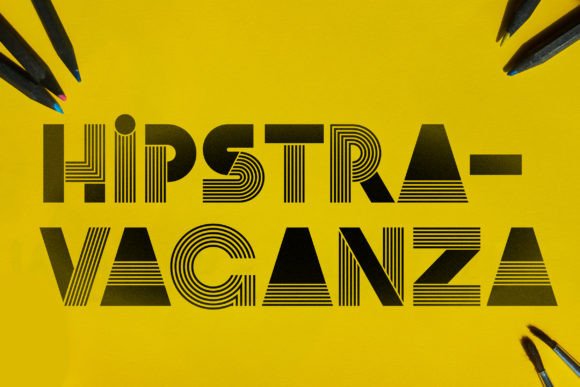
Introducing the Hipstravaganza Font, a Journey into the Realm of Dazzling Typography.
A dazzling display of vintage charm is here—the Hipstravaganza Font. Embark on a typographical voyage where bold, retro style takes center stage, and dynamic designs come to life. This decorative font is a master of capturing attention, leaving an unforgettable impact on your visual creations.
Experience the Burst of Unique Characters:
Unleash the potential of distinctive letterforms that blend blocks and parallel lines in an electrifying fusion. The uppercase and lowercase sets offer diverse design possibilities, allowing you to craft captivating compositions that radiate an inimitable vibe.
Unleash a Symphony of Style:
Let Hipstravaganza's versatility lead you on a journey through diverse design genres. Whether creating striking posters that demand attention, or adding captivating foregrounds to your photography, this font effortlessly adapts to your creative vision.
A Statement Piece in Your Design Arsenal:
Your designs are no longer ordinary; they are statements of style and personality. The intricate shapes of Hipstravaganza demand attention, making it the perfect centerpiece that commands focus. With its visually striking presence, it seamlessly becomes the star of your typographic endeavors.
Dive into a World of Creative Possibilities:
Embrace the allure of harmony and contrast as you pair Hipstravaganza with a select few elements and fonts. Discover the joy of creating balanced compositions that complement its captivating presence. Let your imagination soar and witness the birth of truly exceptional designs.
Dare to Be Different, Dare to Be Bold:
Hipstravaganza is more than just a font—it's an invitation to stand out, to make your mark, and to leave a lasting impression. Its charismatic style empowers you to create designs that speak volumes, leaving your audience spellbound.